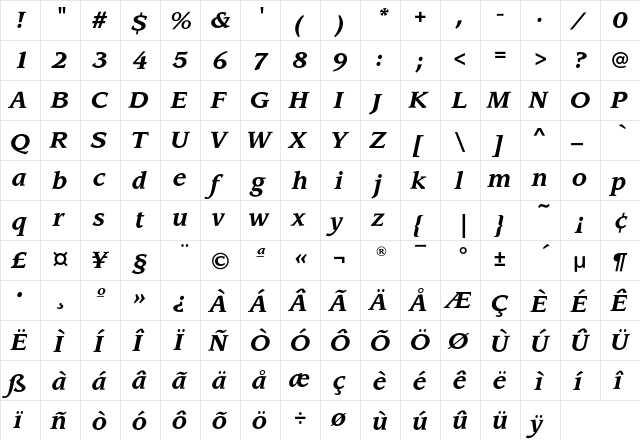
LeawoodEF-BoldItalic Regular Font Preview
LeawoodEF-BoldItalic Regular
Design Context for LeawoodEF-BoldItalic Typeface
LeawoodEF-BoldItalic echoes the hand-painted signage and woodblock typography of the American frontier, with a warm, rugged personality. Its italic angle brings a sense of urgency and motion to the letterforms. Its bold stroke weight gives it real presence on the page.
Perfect for barbecue restaurants, country music branding, vintage poster design, and rustic packaging.
Font Pairing: Combine LeawoodEF-BoldItalic with a simple slab or neutral sans — period-accurate companions reinforce the vintage feel without competing for attention.
Pro Tip: Pair LeawoodEF-BoldItalic with aged textures or distressed backgrounds to amplify its vintage personality.